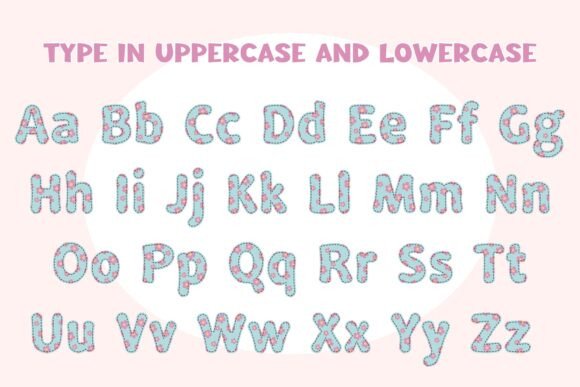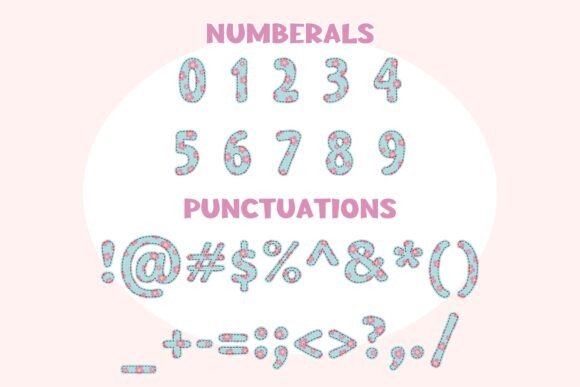
Unleash Your Creativity with the Stunning Bloom Bloom Font
Have you ever stared at a blank canvas, eager to bring a design to life, but struggling to find the perfect font to capture the essence of your idea? That’s where the enchanting Bloom Bloom Font comes in – a game-changing addition to your design arsenal. This captivating font is designed to elevate your projects, whether it’s a t-shirt design, a digital artwork, or a handmade craft.
- Unique Characteristics: The Bloom Bloom Font features a unique blend of organic and geometric shapes, creating a visually striking effect that adds a touch of elegance to any design.
- Style Options: Available in 6 styles, including Regular, Bold, Italic, Bold Italic, Outline, and Shadow, offering versatility and flexibility in design applications.
Bloom Bloom Font Review
Bloom Bloom is a beautiful, delicate font that’s perfect for creating a whimsical and romantic atmosphere in your designs. ✨ The fluid curves and organic shapes of this font make it ideal for packaging, invitations, and other applications where a touch of elegance is needed.
- ✨ The font’s soft, hand-drawn quality gives it a unique and personal feel that’s hard to replicate with more formal fonts.
- ✨ The font is highly customizable, with a wide range of sizes, colors, and effects available to suit your design needs.
- ✨ The font is highly legible, even at small sizes, making it perfect for use in body text or for creating signs and labels.
However, there are some limitations to consider. ⚠️ The font’s delicate nature can make it prone to distortion or pixelation when used at small sizes or in low-resolution applications.
Overall, Bloom Bloom is a lovely font that’s perfect for designers looking to add a touch of whimsy and romance to their projects. While it may have some limitations, the font’s unique qualities and high level of customizability make it a great choice for a wide range of design applications.
The Bloom Bloom font is perfect for:
- Creating whimsical and playful designs.
- Adding a touch of elegance to your branding.
- Designing children’s products and educational materials.
For optimal results, use the Bloom Bloom font in conjunction with bright and pastel colors.